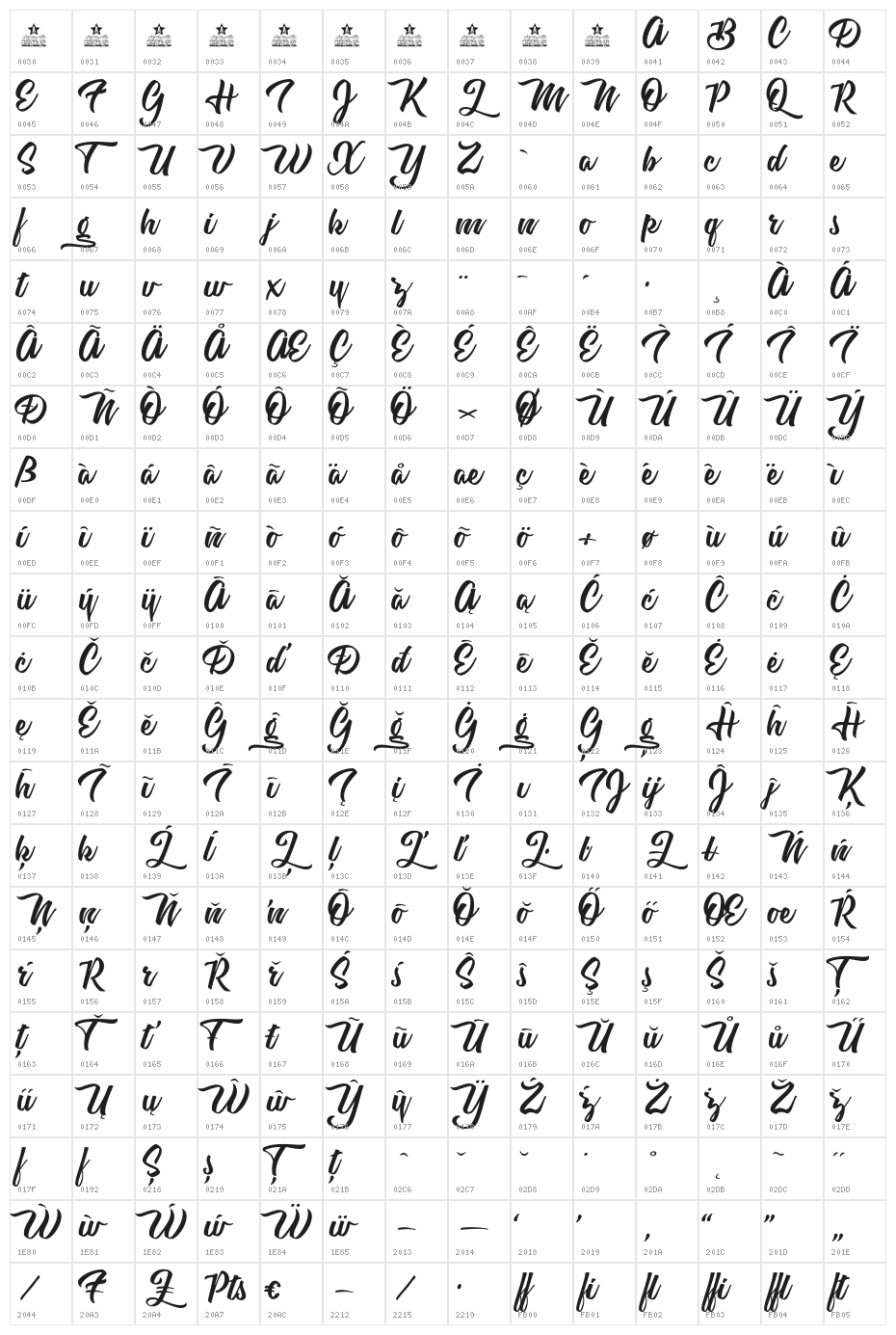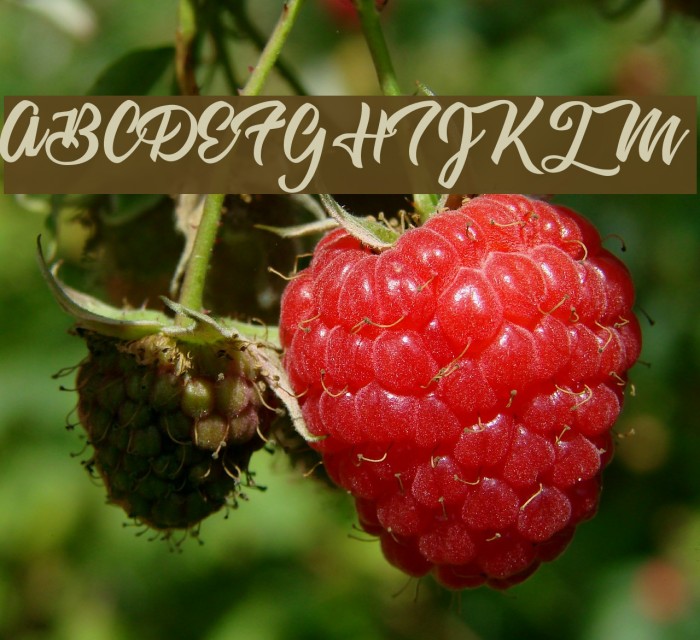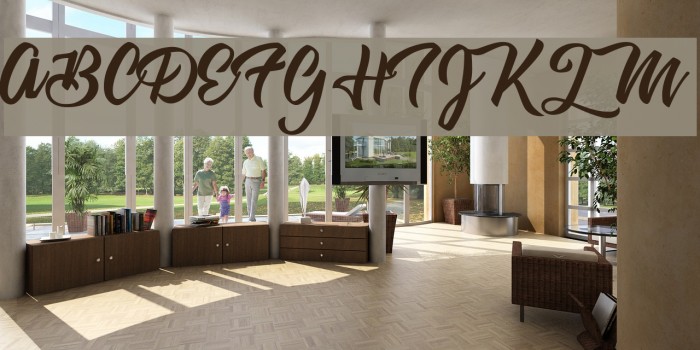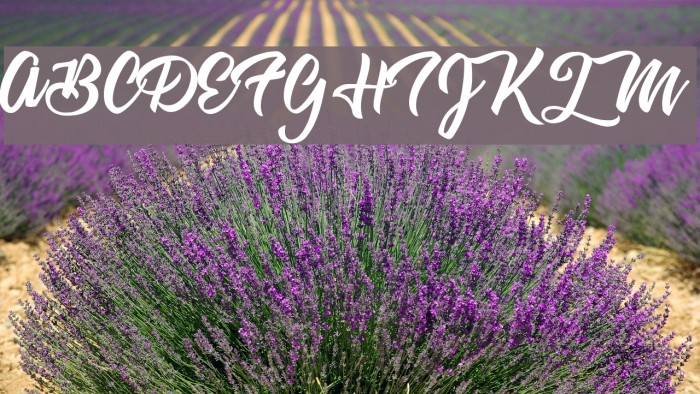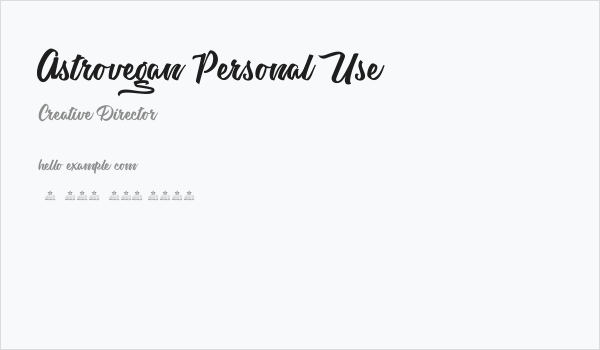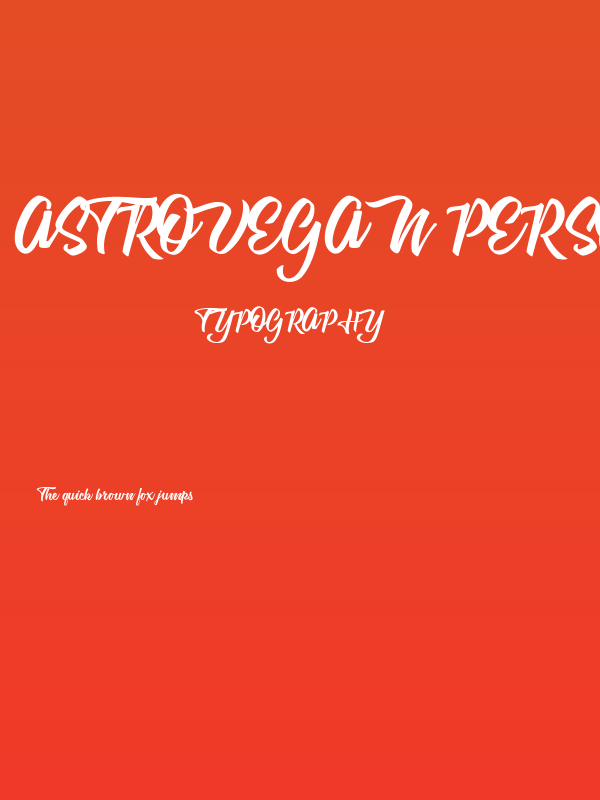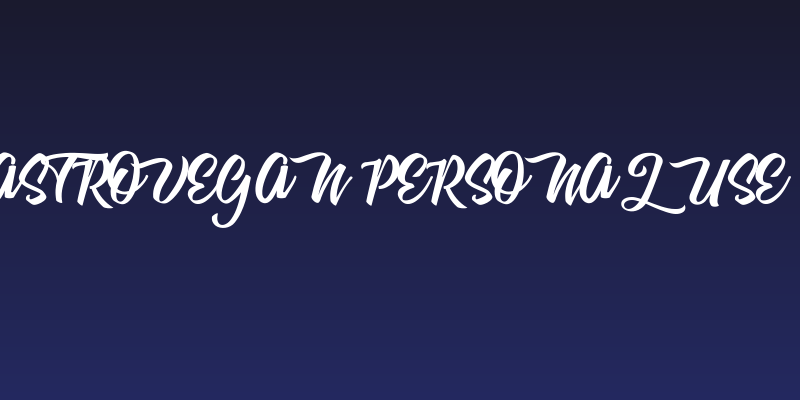
Astrovegan Personal Use Font
Astrovegan Personal Use Description
This font features a bold and expressive script style, characterized by its flowing, cursive letterforms. The uppercase letters are elegantly connected, while the lowercase letters maintain a consistent rhythm and fluidity. The strokes are thick and confident, giving the font a strong presence. The overall design is modern yet retains a touch of classic calligraphy, making it versatile for various design applications. The characters are slightly slanted, enhancing the dynamic and lively appearance. This font is ideal for projects that require a personal and artistic touch.
| Proposed Projects | Ideal for branding, invitations, greeting cards, and artistic projects. |